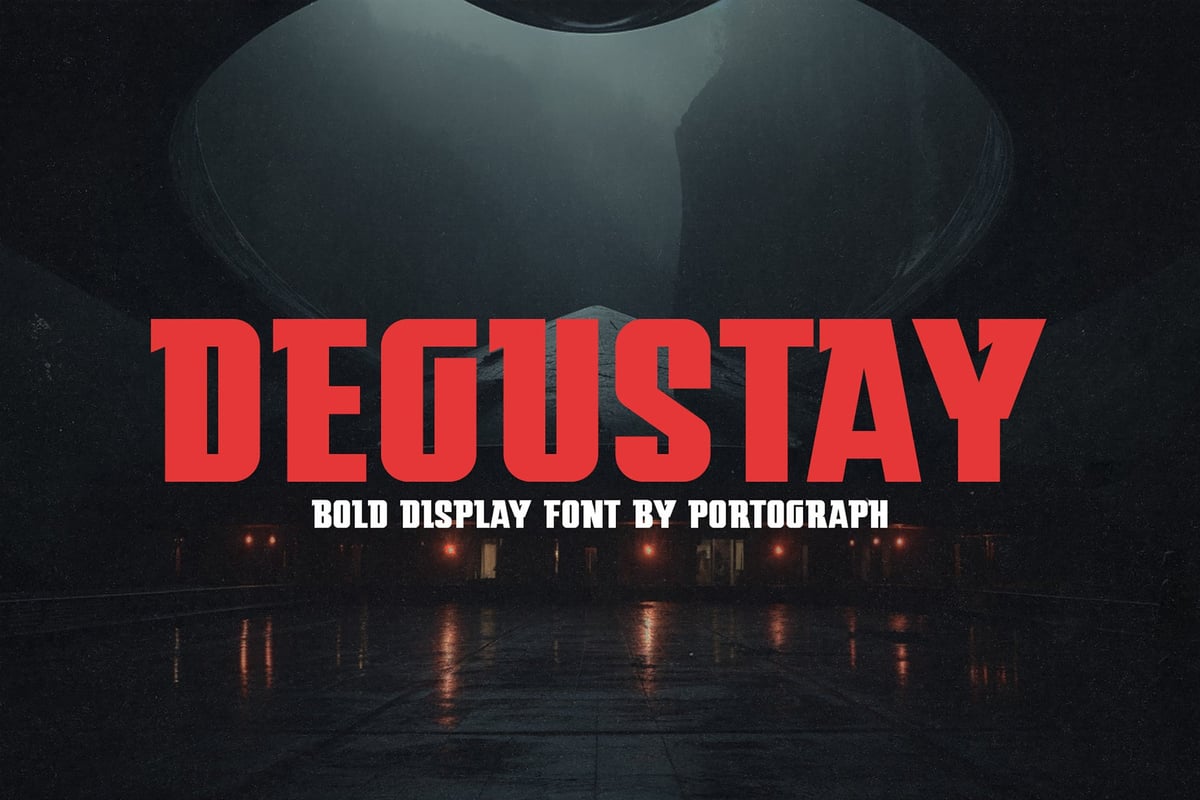
Degustay - Display Font
Command attention with Degustay, a bold condensed display font that channels dystopian power and cinematic intensity. Inspired by dystopian aesthetics and cinematic visuals, Degustay features strong vertical proportions and sharp character shapes that deliver a dark, powerful, and futuristic tone. This condensed display font stands out instantly and performs best in large scale typography where strength and atmosphere are essential. Package includes: OTF format TTF format WOFF format Key feature...